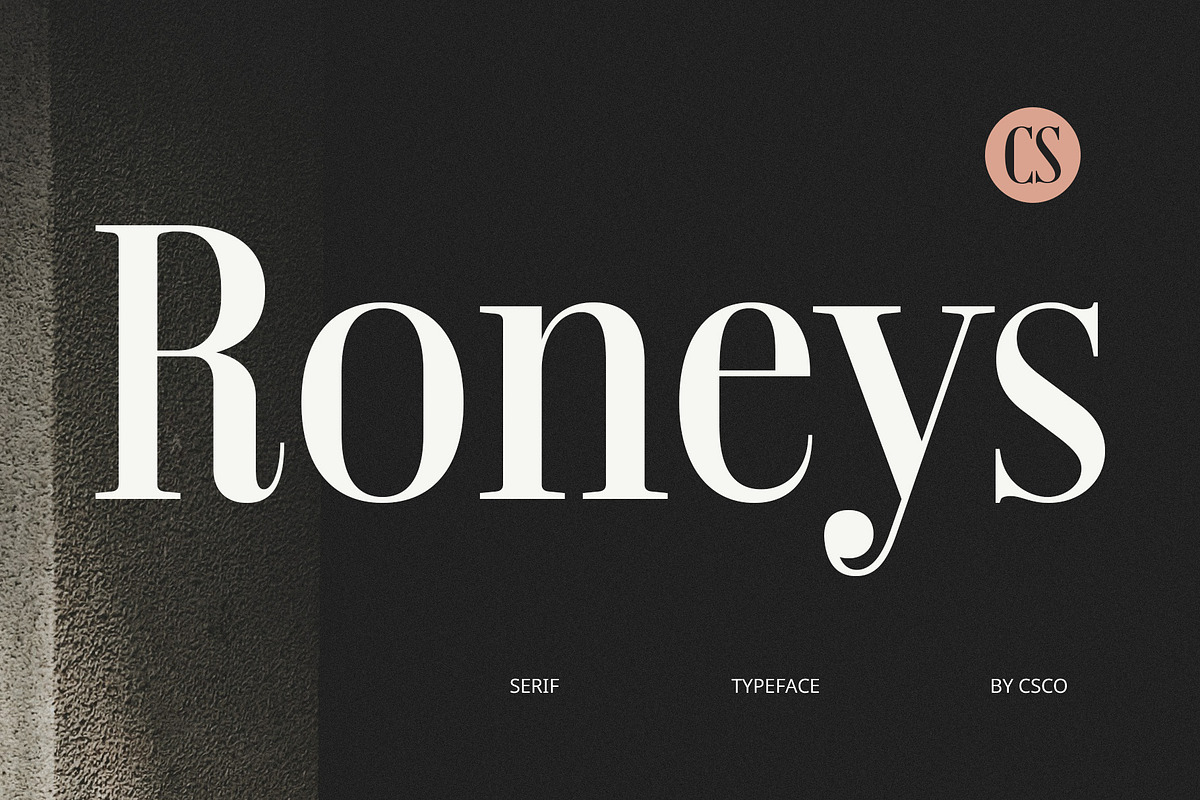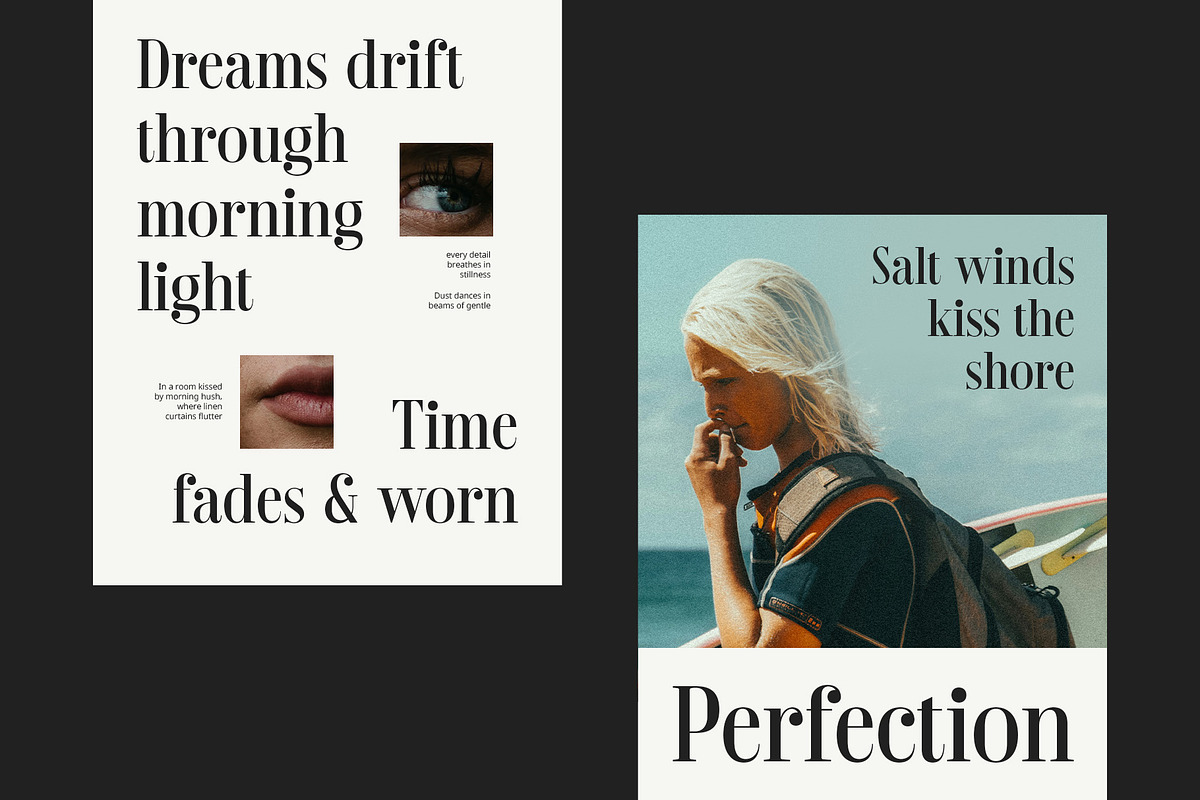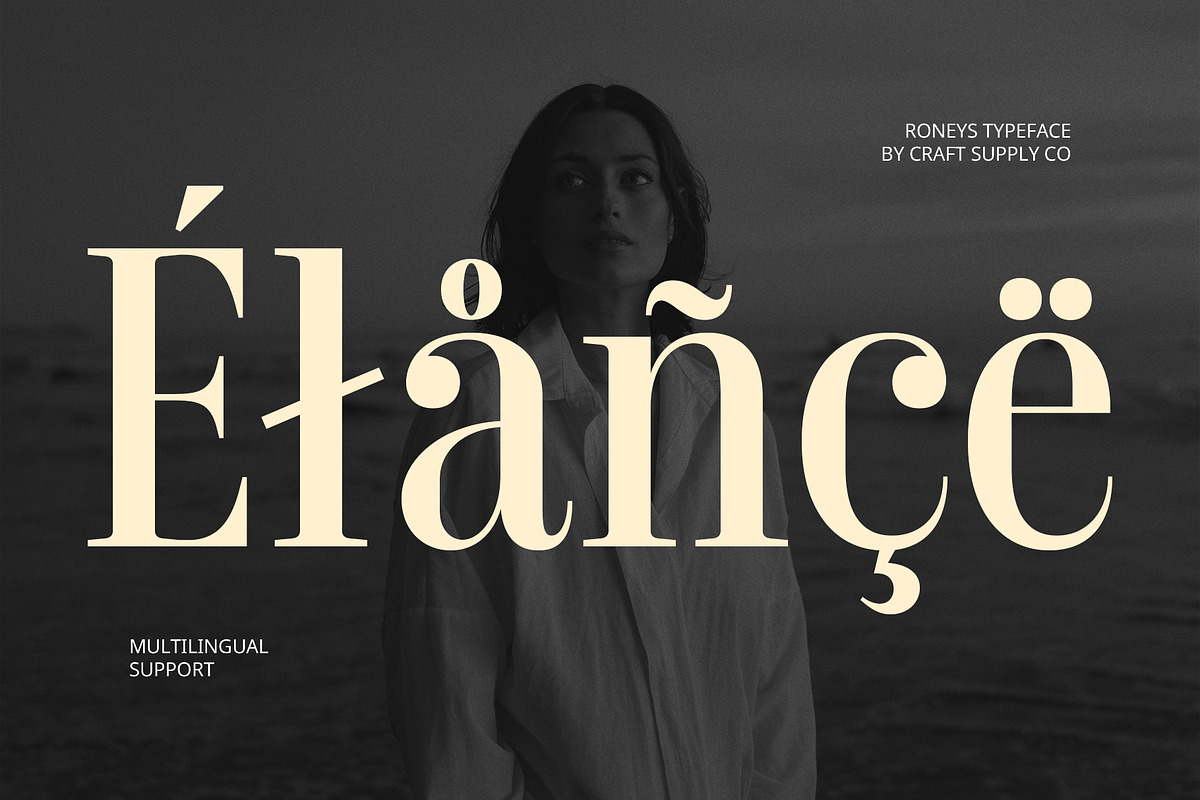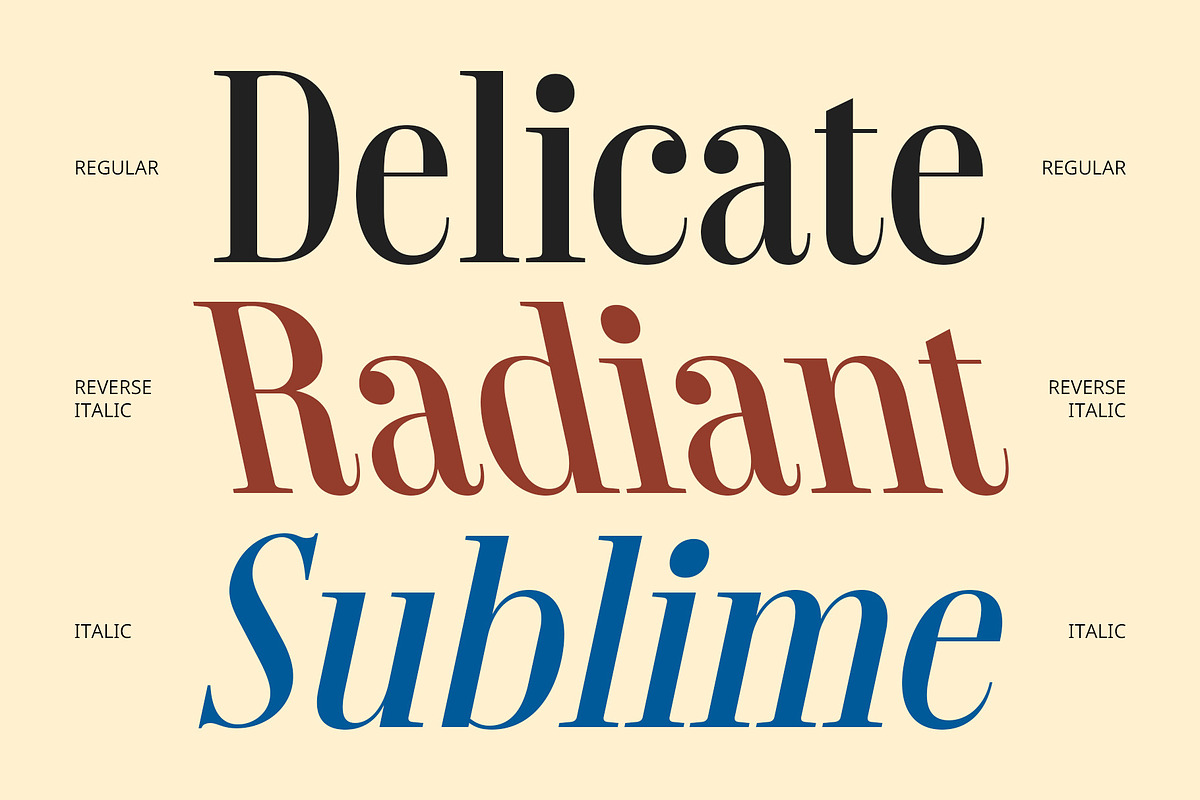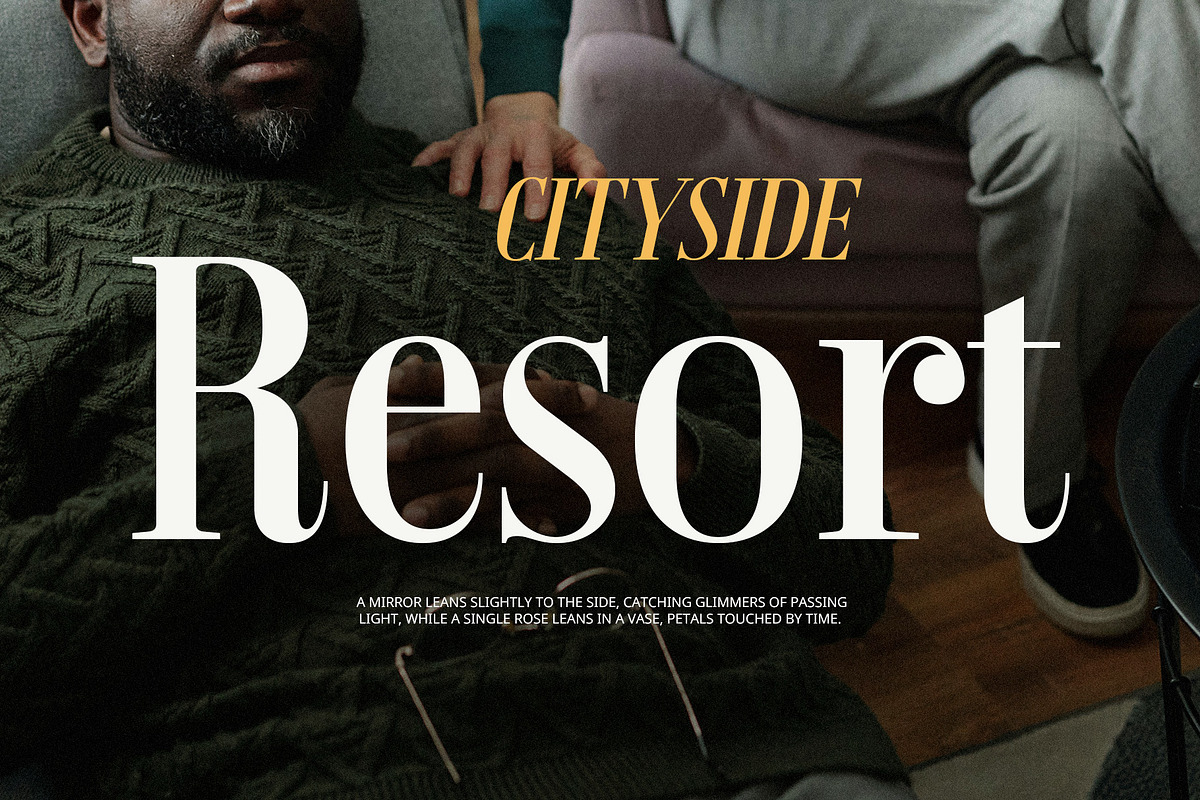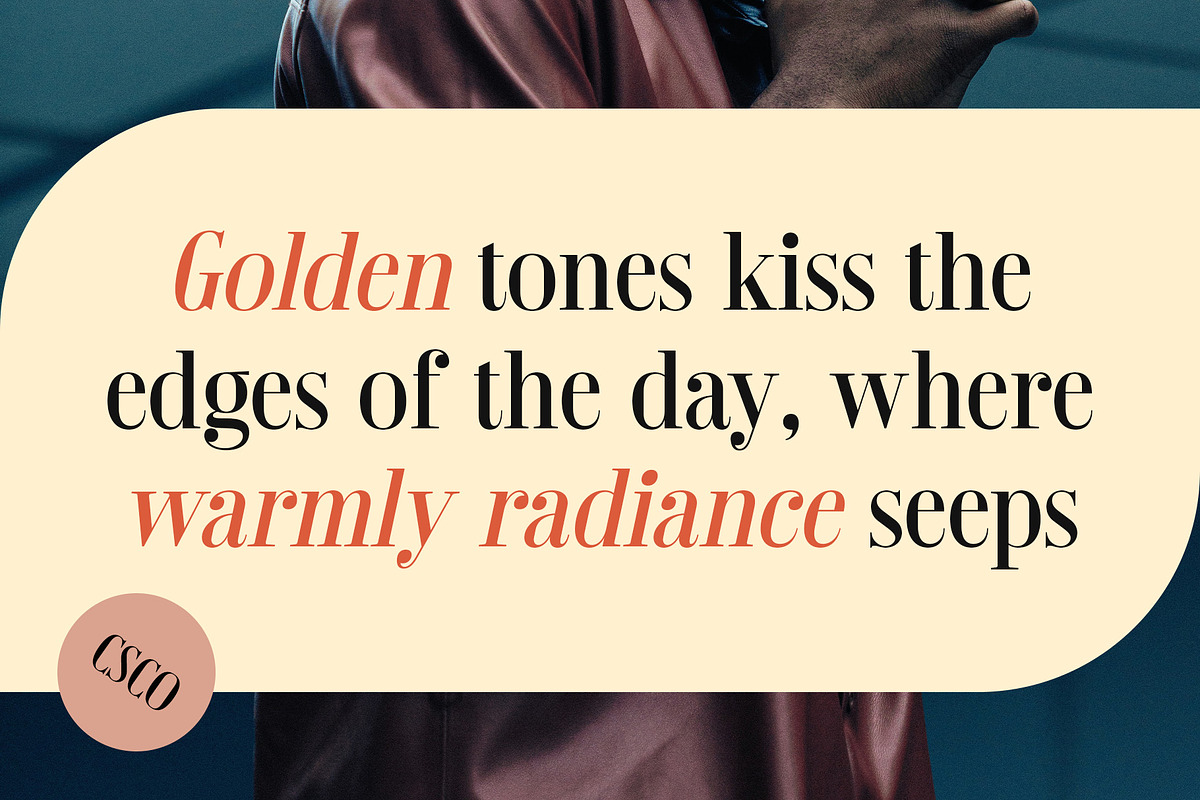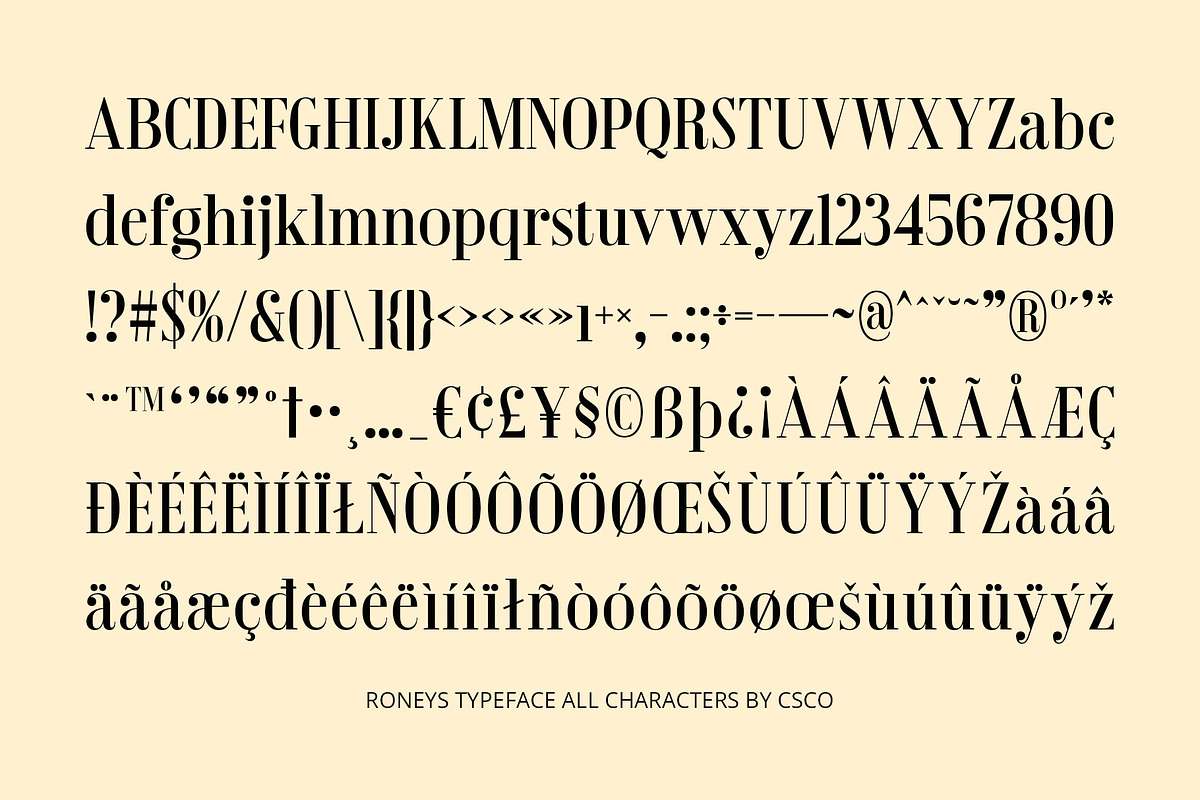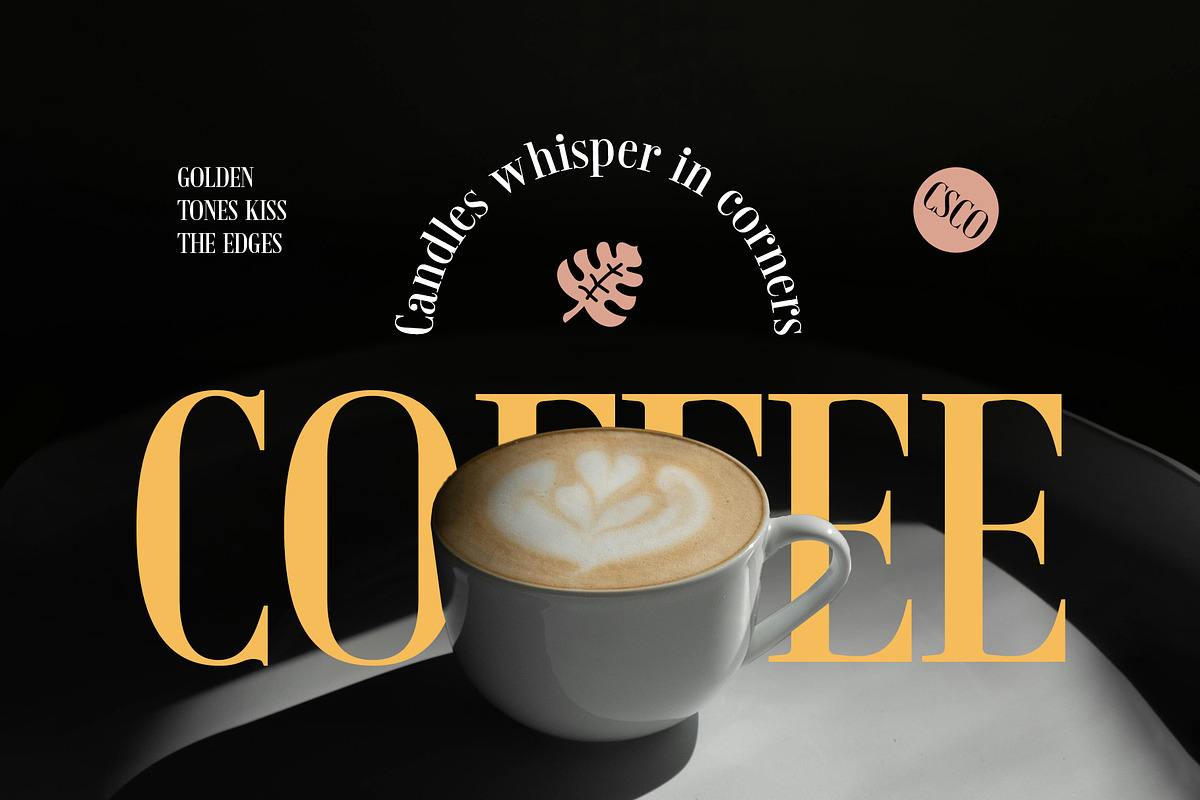
Roneys – Classic Font
Roneys Font – Classic Elegance Refined for Modern Design
A Timeless Serif with High-Contrast Precision Roneys is a modern serif font that pays homage to the elegance of classic Didone typography. It features high contrast between thick and thin strokes, long and refined serifs, and a graceful vertical stress that adds sophistication to any composition. Drawing from historical roots yet designed with a clean, contemporary structure, Roneys offers a fresh interpretation of timeless elegance.
Slim Letterforms with a Captivating, Polished Look Each character in Roneys is crafted with precision—its slim, sharp lines exude elegance while maintaining strong visual clarity. The elongated serifs and crisp finishes bring a dramatic flair, resulting in text that’s both eye-catching and refined. This careful balance of form ensures Roneys stands out in both digital and print formats.
Ideal for Luxury Branding, Editorials, and Fashion Roneys is the perfect choice for high-end branding, luxurious packaging, editorial design, and modern visual storytelling. Its graceful appearance complements fashion magazines, boutique logos, and design-focused layouts. Whether used in large display settings or elegant typographic treatments, it conveys sophistication with every letter.
Bridging Tradition and Modernity with Style What sets Roneys apart is its ability to capture the grace of traditional typography while fitting seamlessly into contemporary design needs. It’s a versatile serif that elevates brand identities, enhances headlines, and supports artistic expression in a sleek, professional manner.
- Roneys Regular
- Roneys Italic
- Roneys Reverse Italic